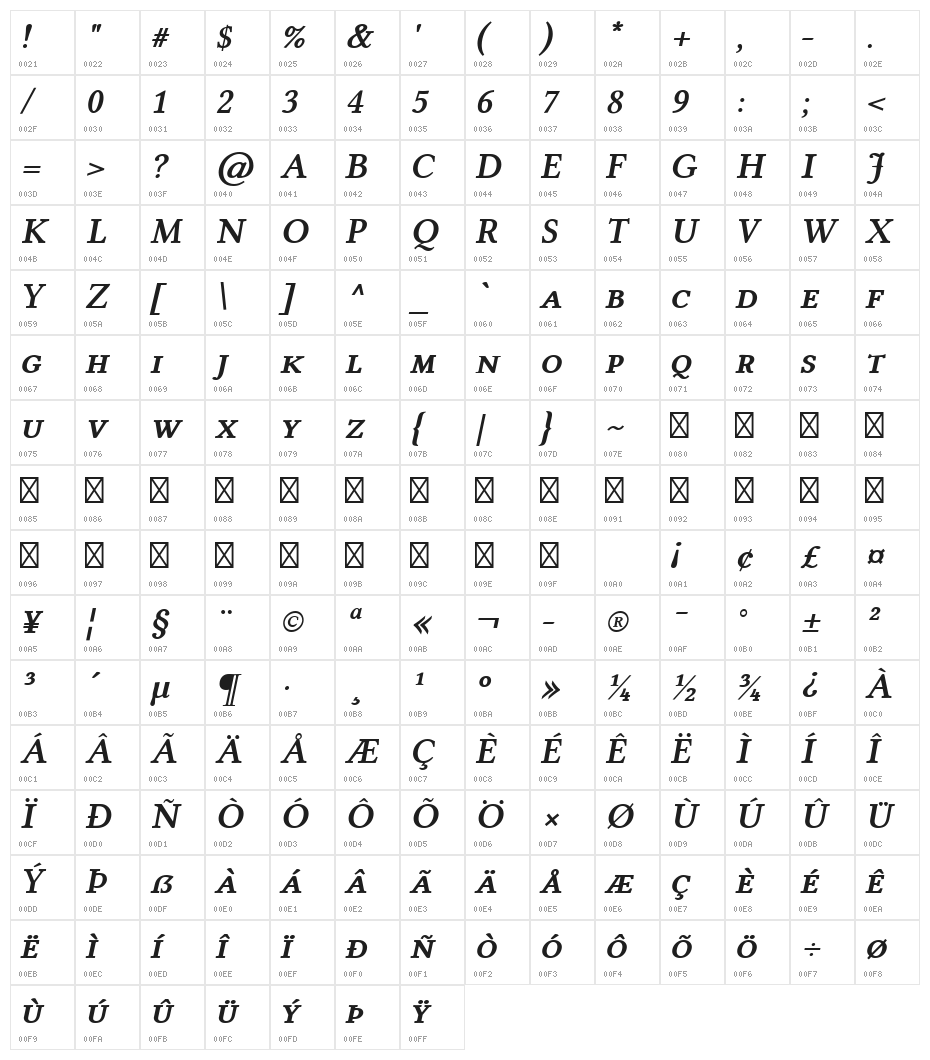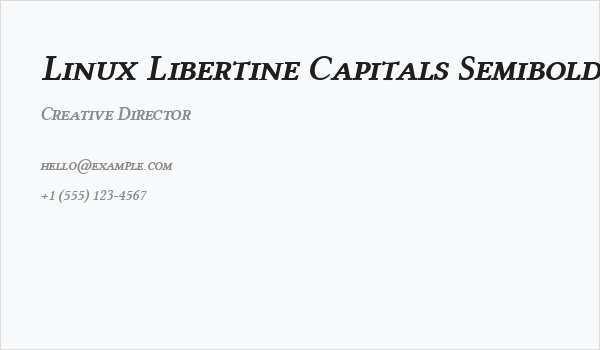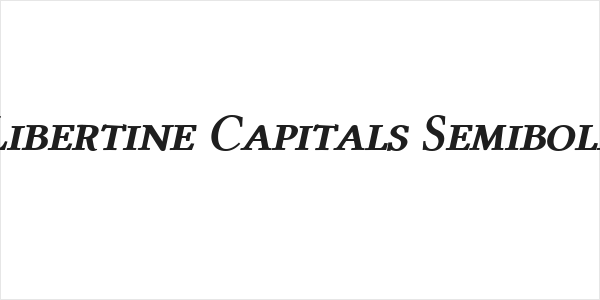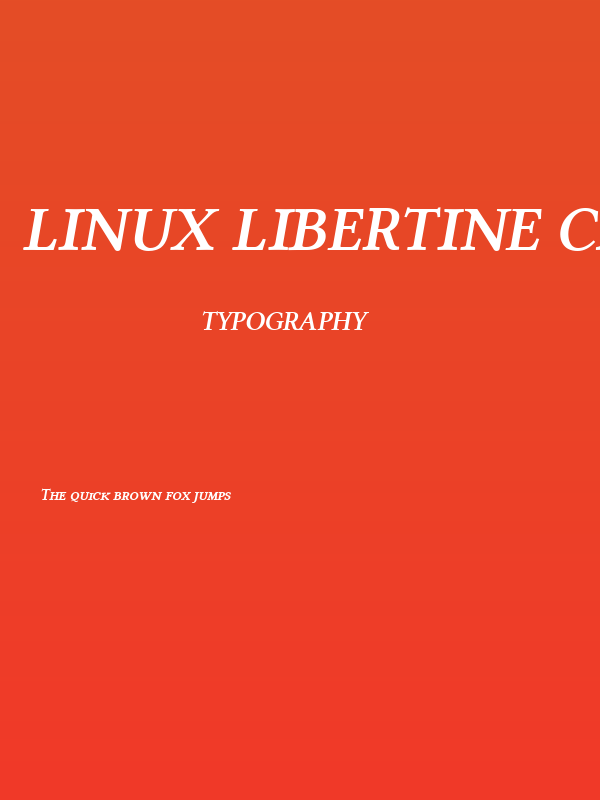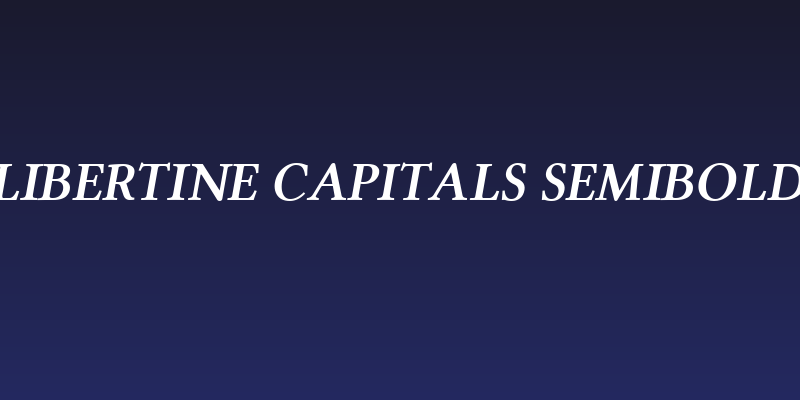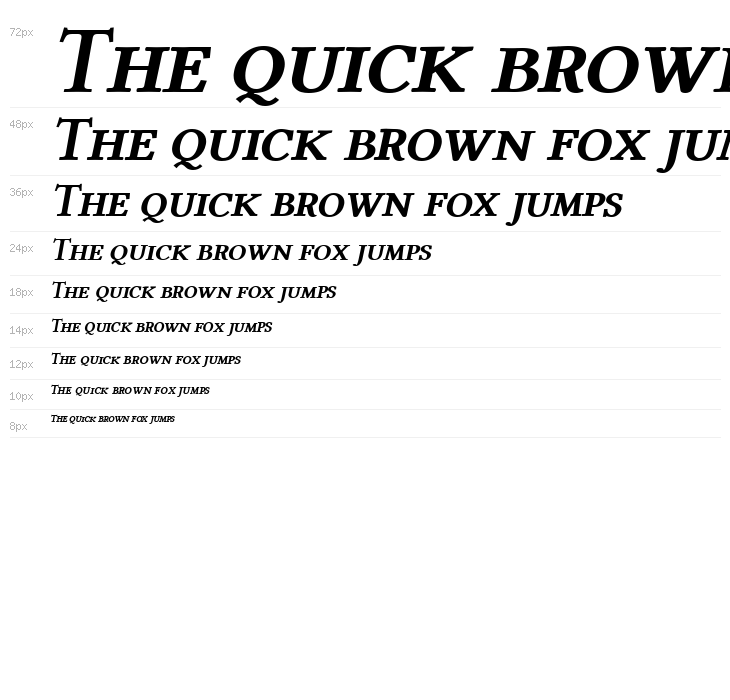
Linux Libertine Capitals Semibold Italic Font
Linux Libertine Capitals Semibold Italic Description
This font exhibits a classic serif style with a semi-bold weight, providing a strong yet elegant appearance. The italicized form adds a sense of motion and sophistication, making it suitable for formal and professional contexts. The characters are well-defined with moderate contrast in stroke thickness, enhancing readability while maintaining a refined aesthetic. The spacing between characters is balanced, ensuring clarity and legibility across various applications. The numerals and special characters are consistent with the overall design, offering versatility in usage.